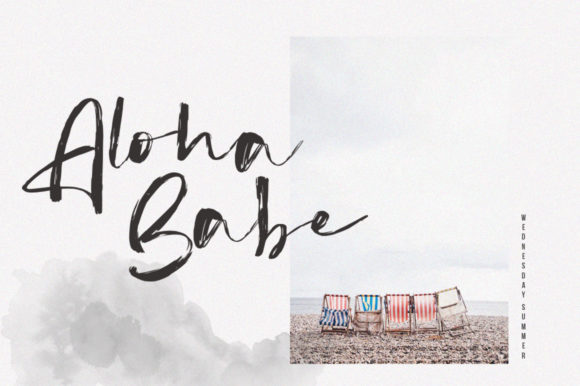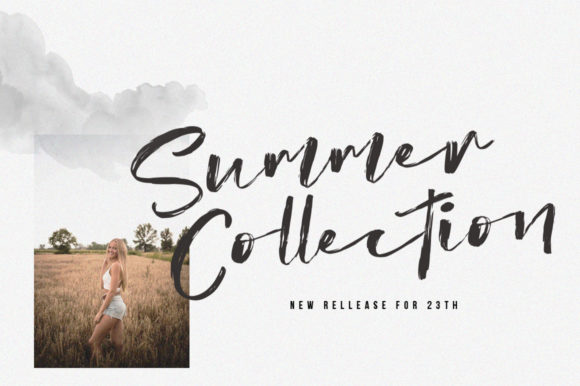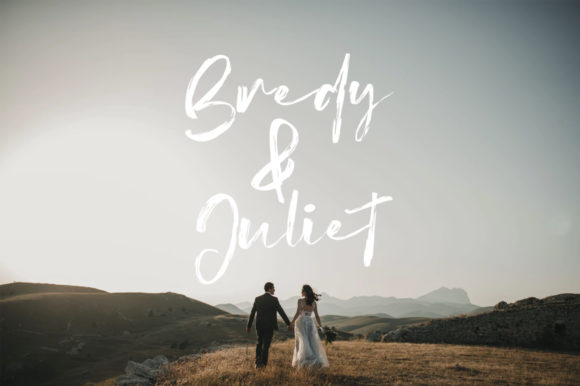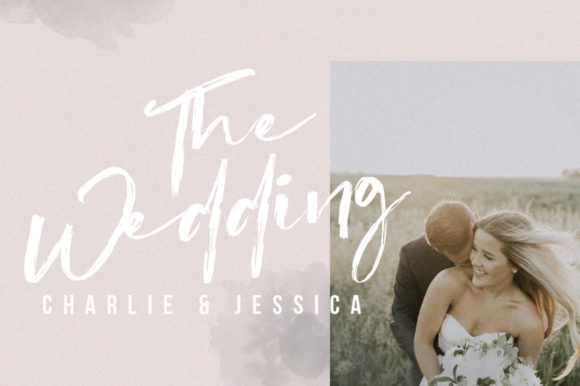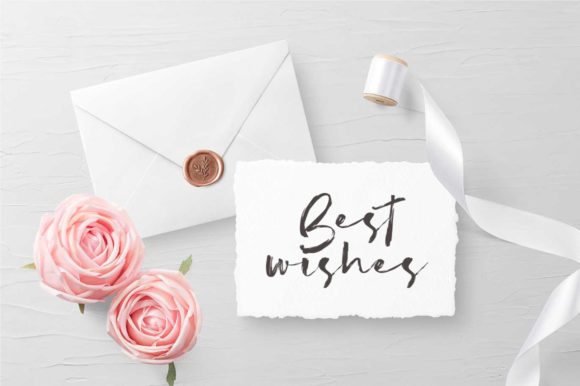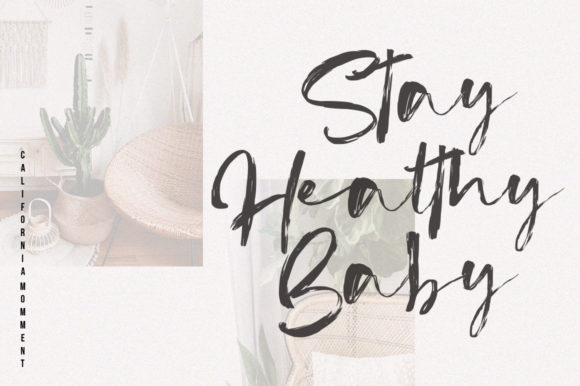
Introducing Aliters Font: A Beautiful Handwritten Script for Creative Minds
Are you a designer, crafter, or creative enthusiast looking for a unique and versatile font to elevate your visual projects? Look no further than Aliters Font, a stunning handwritten script that is sure to capture your heart. Created with the help of a special brush pen, Aliters boasts an incredibly versatile style that can be used to create a wide range of beautiful and eye-catching designs.
The Story Behind Aliters Font
Aliters Font is the result of a meticulous crafting process, where the creator carefully used a unique brush pen to produce a handwritten script that exudes elegance and sophistication. The font’s design is characterized by its fluid strokes, varying line widths, and charming imperfections, which give it a distinctly human touch. This attention to detail and commitment to quality is evident in every aspect of Aliters, making it a standout addition to any design collection.
Endless Creative Possibilities with Aliters Font
One of the most exciting aspects of Aliters Font is its incredible versatility. This beautiful handwritten script can be used to create a wide range of designs, from elegant wedding invitations and stationery art to eye-catching social media posts and more. Whether you’re a professional designer or a crafty DIY enthusiast, Aliters provides the perfect tool to add a personal touch to your projects and make them truly special.
Wedding Invitations and Stationery
Aliters Font is an ideal choice for creating stunning wedding invitations, save-the-date cards, and other stationery items. Its elegant and sophisticated style perfectly complements wedding themes, and its legibility ensures that all the important details are clearly communicated. With Aliters, you can create beautiful and memorable wedding stationery that sets the tone for an unforgettable celebration.
Social Media and Digital Designs
In today’s digital age, having a strong online presence is crucial for businesses, bloggers, and creatives alike. Aliters Font can help you elevate your social media game with eye-catching posts, stories, and graphics that showcase your brand’s personality. Its unique and artistic style is sure to grab attention, engage your audience, and leave a lasting impression.
Crafting and DIY Projects
Aliters Font is not just limited to digital designs; it’s also perfect for various crafting and DIY projects. Use it to create beautiful handmade cards, journals, and scrapbook pages that showcase your creativity and personal style. With Aliters, you can add a touch of elegance and sophistication to your crafts and make them truly special.
Key Features and Benefits of Aliters Font
- Unique and Handwritten Style: Aliters boasts a beautiful, handwritten script that adds a personal touch to any design.
- Versatile and Adaptable: This font can be used for a wide range of projects, from wedding invitations to social media posts.
- Elegant and Sophisticated: Aliters exudes elegance and sophistication, making it perfect for designs that require a touch of refinement.
- Easy to Read and Legible: Despite its artistic style, Aliters is highly legible, ensuring that your message is clearly communicated.
Aliters Font is a beautiful and versatile handwritten script that offers endless creative possibilities for designers, crafters, and creative enthusiasts. Its unique style, elegance, and sophistication make it perfect for a wide range of projects, from wedding invitations and stationery to social media posts and DIY crafts. With Aliters, you can add a personal touch to your designs and make them truly special. So why wait? Fall in love with Aliters Font and unlock your creative potential today!